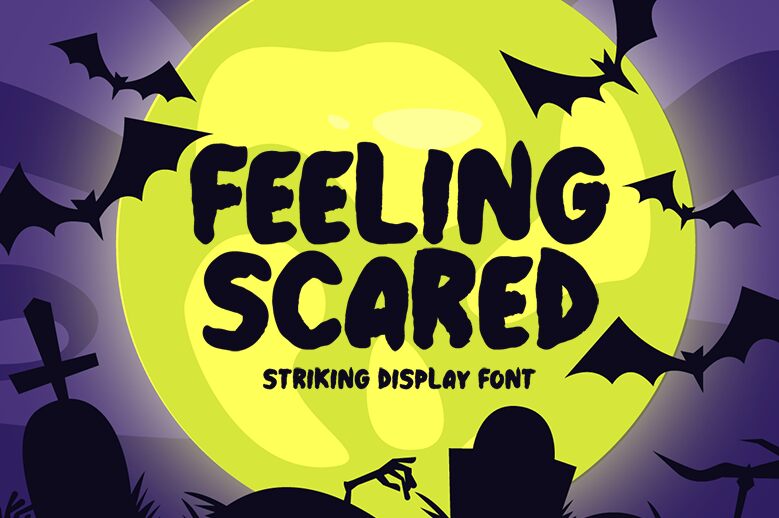
Feeling Scared font by Md Shohail Bhuian is a bold Halloween typeface with a creepy, unsettling, and expressive design. Its unique unsteady style is shown through shaky lines, rough textures, and irregular letters which together create terrifying typographic shapes. Each character features white lines in its inner side and black in the outer one for an even more startling appearance. The scariness of this bold font comes naturally without trying too hard to communicate fear.
As it is free to use, Feeling Scared can enhance the typography of posters for parties held during the spooky season of October. A bigger role would be as body text on book covers of thriller or horror stories written by indie authors like Stephen King for instance! Other uses include merchandise items like mugs T-shirt prints and even media types such as YouTube channel intros.